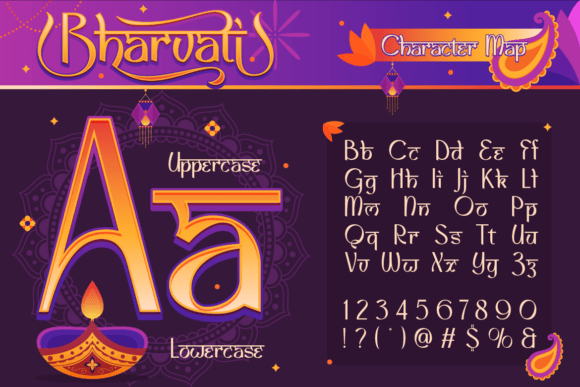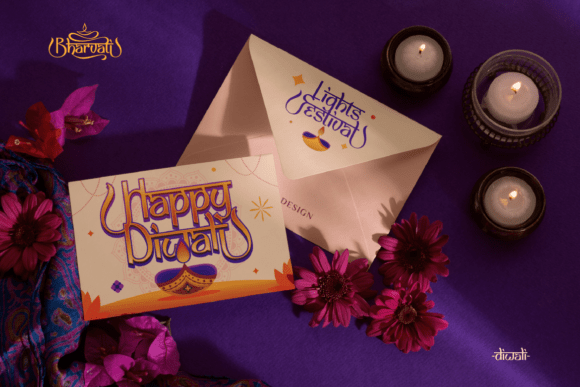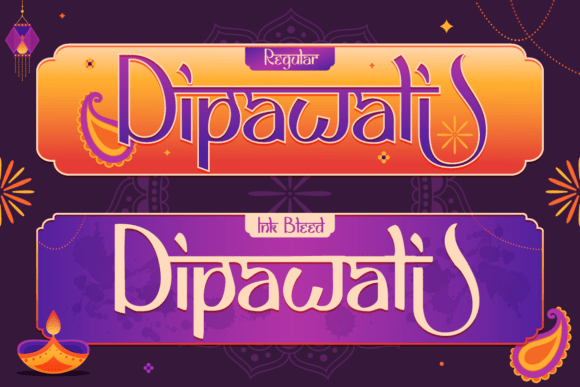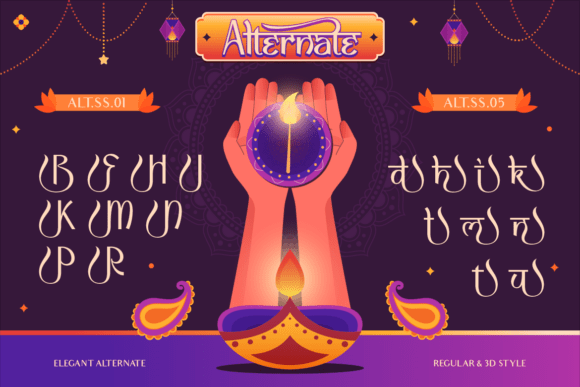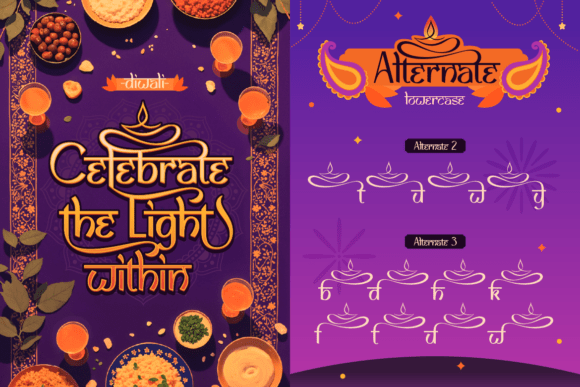
Light Up Your Design with Bharvati Regular Font
Imagine you’re walking through a bustling market on Diwali night, surrounded by twinkling lights and the vibrant sounds of celebration. The air is filled with the sweet scent of incense and the warmth of the festival spirit. As a designer, you want to capture this essence in your work, but finding the right font can be a challenge. That’s where Bharvati Regular Font comes in – a stunning Indian-style display font that embodies the festive vibes of Diwali and adds a touch of cultural charm to your designs.
Bharvati Regular Font is more than just a pretty face; it’s a valuable tool for designers who want to add a personal touch to their projects. With its clean, polished look and elegant curves, it’s perfect for headlines, invitations, branding, and more. Whether you’re designing festival posters, packaging, social media graphics, or wedding cards, Bharvati Regular Font will help you bring warmth, culture, and celebration into your typography.
- Character Set: Supports Latin, Greek, and Cyrillic character sets
- Unique Characteristics: Features a unique blend of traditional and modern design elements, with a distinctive flair for elegance and sophistication
Bharvati Regular Font Review
Overall, I’d say the Bharvati Regular font is a decent addition to any designer’s toolkit. Here are some things that I think work well: ✨
- Unique aesthetic: Bharvati Regular has a distinct, traditional Indian vibe that can add a touch of cultural flair to any project.
- Legibility: Despite its ornate appearance, the font is surprisingly readable, making it a great choice for body text.
- Scalability: Bharvati Regular holds up well at various font sizes, from small captions to large headlines.
However, there are a few limitations to keep in mind: ⚠️
- Limited font family: Bharvati Regular is a single weight, which may not provide enough flexibility for complex typography projects.
- Not ideal for digital screens: The font’s intricate details may not display as well on lower-resolution screens or in digital environments.
Overall, I’d give Bharvati Regular 3.5 out of 5 stars. It’s a solid choice for projects that require a traditional Indian aesthetic, but it may not be the best fit for more modern or experimental designs.
Tips for Getting the Most Out of Bharvati Regular Font
To get the most out of Bharvati Regular Font, use it for headings and titles in your designs. This font is ideal for creating a classic and elegant look. Experiment with different font sizes and styles to create a visually appealing design.
Bharvati Regular Font is commonly used for:
– Headings and titles
– Print materials such as business cards and brochures
– Digital materials such as websites and social media graphics
What is the character set of Bharvati Regular?
Bharvati Regular includes a comprehensive character set, covering Latin, Greek, and Cyrillic alphabets, as well as a range of punctuation and symbol characters. This makes it suitable for use in a variety of languages and applications.